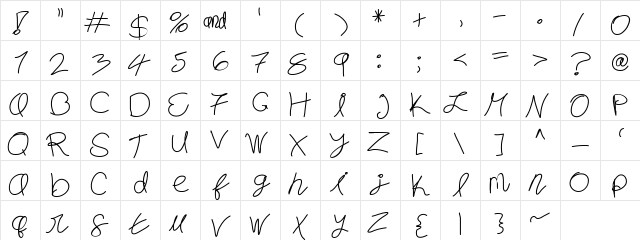
YouMeAndCoffee Medium Free Font
YouMeAndCoffee Medium
Design Context for YouMeAndCoffee
YouMeAndCoffee is a composed and adaptable typeface that performs quietly and consistently across a wide range of design contexts.
Pro Tip: Use YouMeAndCoffee in both headline and body roles to test its range before committing to a single application.